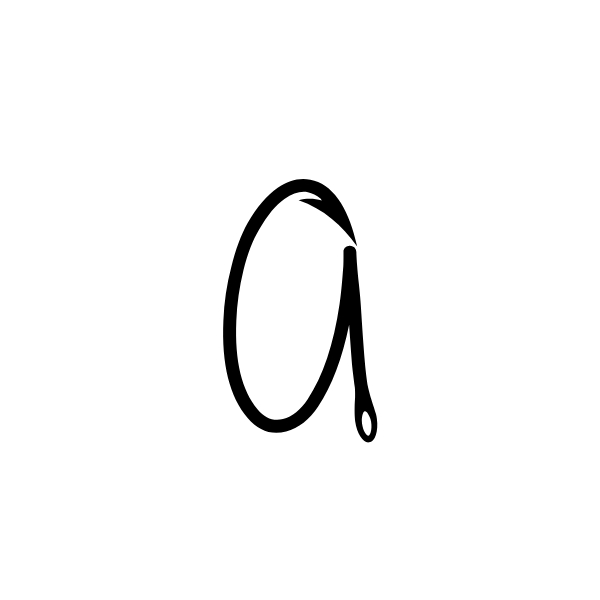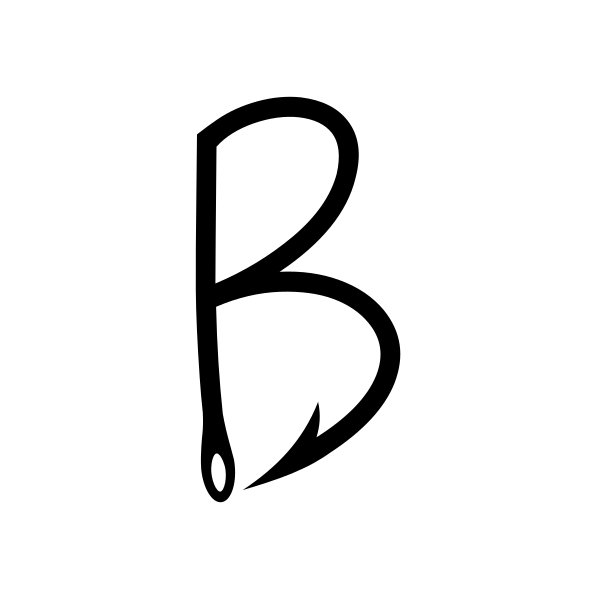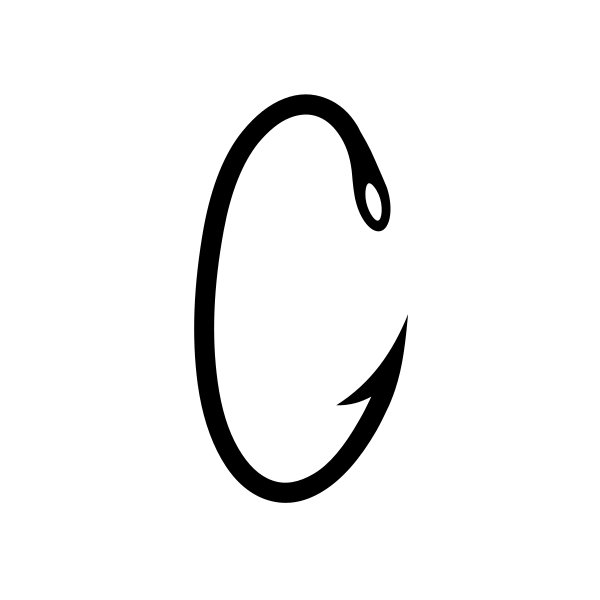
Fishing Font is a decorative uppercase typeface featuring distinctive hook-shaped details integrated into every letter. Clean outlines are combined with subtle fishing hook elements that create a strong outdoor character while keeping the text clear and readable. The design captures the spirit of angling, lakeside trips and nature-inspired themes without looking overly complex.
Each letter has a slightly hand-drawn appearance, giving the font an authentic and creative feel. It works well for bold headings, short names and themed wording where a recognisable fishing style is required. Fishing Font adds a striking, rustic touch to craft projects and personalised designs connected to outdoor and hobby themes.